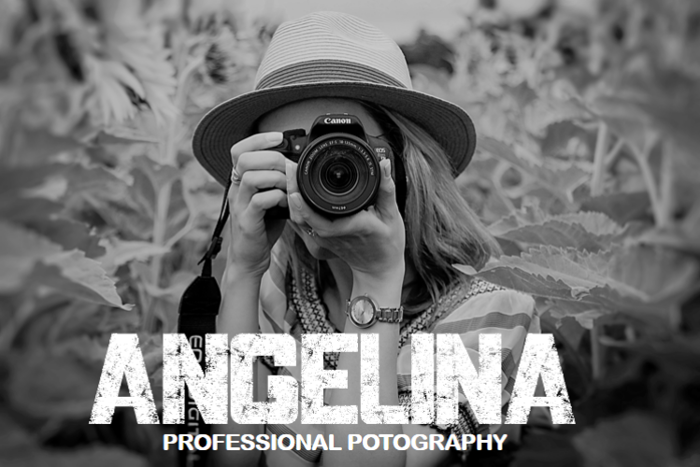
SLEMAN Font
I wanted a font that was apocalyptic, urban and grunge that would work well on posters
This font is perfect for t-shirt design needs, logos, branding, photography watermarks, game branding and much more